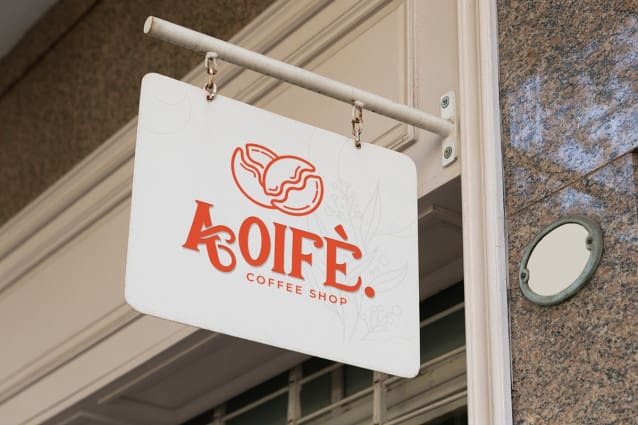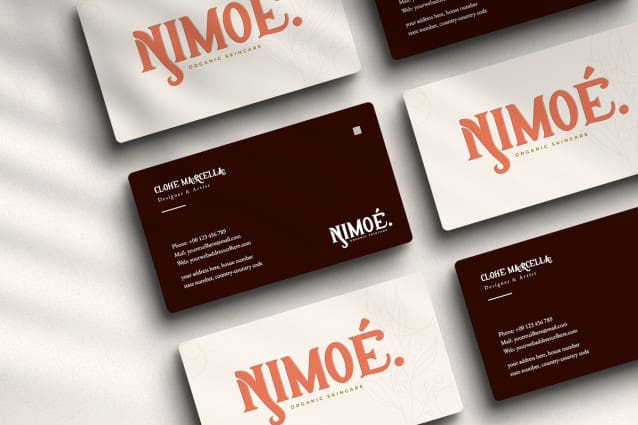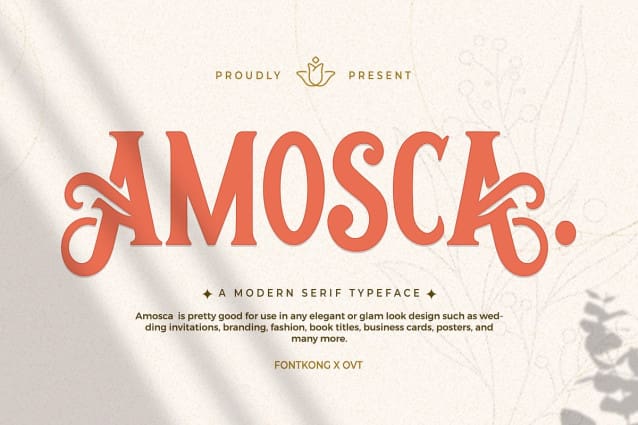
Amosca Font
Amosca Font, a modern serif typeface that combines contemporary elegance with timeless versatility. Perfect for designers, typographers, and creatives seeking to enhance their projects with a sophisticated and polished touch, Amosca offers a sleek and stylish serif style that elevates any design.
Ideal for editorial layouts, branding, logos, packaging, and web design, Amosca’s clean lines and balanced proportions provide a refined and professional aesthetic. Each character is meticulously crafted to ensure readability and visual appeal, making your designs both elegant and impactful.
The “Amosca Font includes a complete set of uppercase and lowercase letters, numbers, punctuation marks, and special characters. This comprehensive set ensures seamless integration into various design projects, from chic branding to elegant editorial content.
Elevate your designs with Amosca, the modern serif typeface that brings contemporary elegance and timeless versatility to every project.